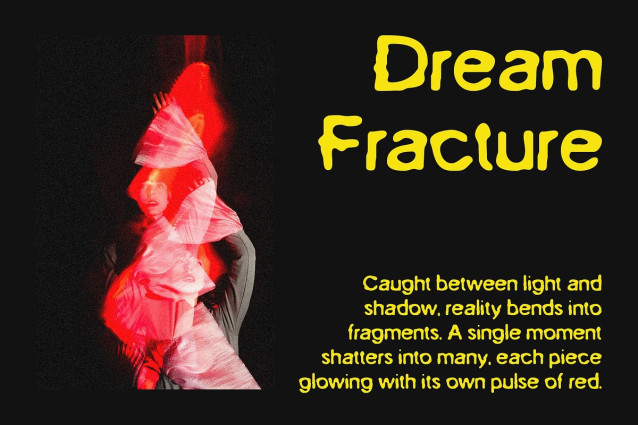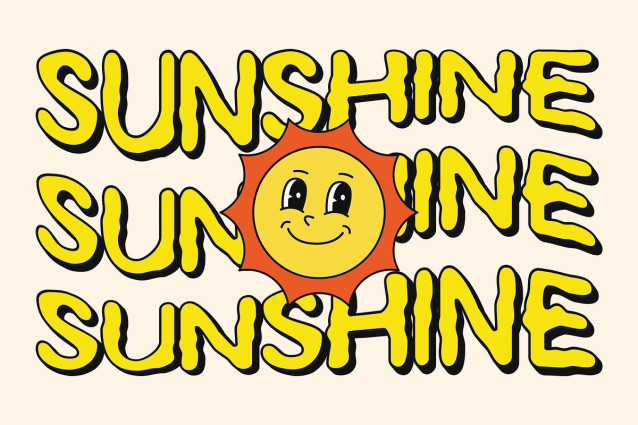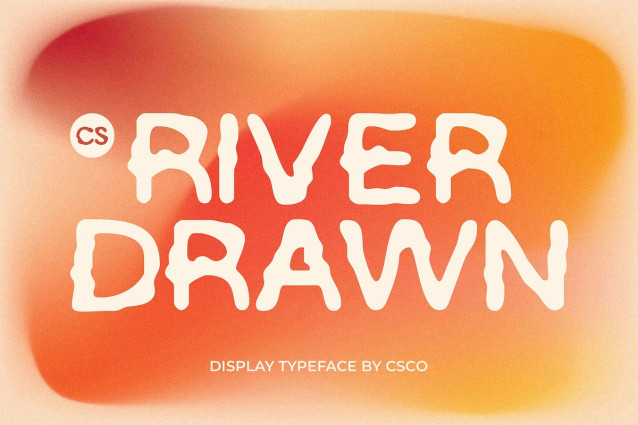
CS River Drawn Font
CS River Drawn Font – This is a modern display font featuring funky, psychedelic letterforms with dynamic and unconventional lines. Its playful, imaginative shapes create a unique and visually captivating appearance, perfect for designs that want to stand out.
Handmade Drawn Texture for Expressive Personality Enhanced with a subtle drawn effect, each character gains a handcrafted texture that adds artistic character and depth. The manual detailing makes the font lively, energetic, and full of expressive charm.
Playful, Distinctive, and Energetic Style This artistic and handmade font blends unconventional psychedelic forms with contemporary styling. Its dynamic curves and imaginative shapes give every project a bold, playful, and distinctive presence that captures attention immediately.
Ideal for Creative and High-Impact Projects Perfect for posters, branding, music designs, or other creative applications, this expressive font brings energy, individuality, and fun to any design. Its combination of psychedelic artistry and handmade texture ensures a visually striking and memorable result.
Elevate Designs with Artistic Imagination With dynamic shapes, trippy curves, and artisanal detailing, this bold font turns typography into a vibrant, attention-grabbing visual statement. It’s a versatile choice for projects seeking a playful, energetic, and creatively expressive font.